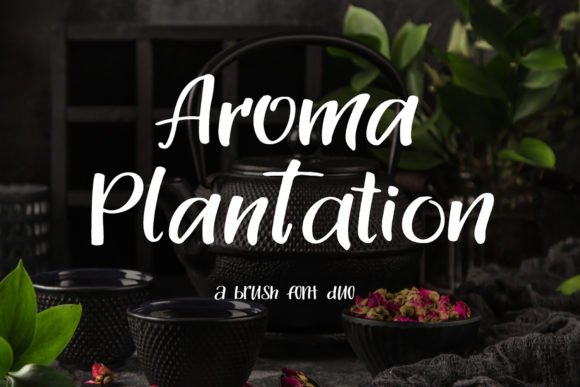
Unlock the Scent of Creativity with Aroma Plantation Duo Font
Have you ever found yourself lost in the world of typography, searching for the perfect font to evoke the warmth and charm of your favorite café? As a designer, you know that the right font can transport your audience to a different time and place, making their experience truly unforgettable. For me, it was a lazy Sunday morning, sipping coffee and browsing through a design blog, when I stumbled upon the Aroma Plantation Duo Font.
This stunning handlettering typeface is more than just a pretty face – it’s a powerful tool for creating beautiful, handmade typography that’s sure to capture the attention of your audience. With its clear style, good mood, and dramatic movement, Aroma Plantation Duo Font is perfect for designers looking to add a touch of elegance to their branding or web design projects.
Aroma Plantation Duo Font Key Features
- Size: Multi-language support with over 2000 glyphs, including Latin, Cyrillic, Greek, and Devanagari scripts
- Resolution: Optimized for high-resolution displays (Retina, 4K, etc.)
- Unique Characteristics: Elegant, modern design with a natural feel; perfect for branding, packaging, and editorial projects
- Font Styles: 2 font styles (Regular, Bold) with extensive language support
- Font Size Range: Suitable for body text, headlines, and titles; recommended font size range is 12-48 points
Aroma Plantation Duo Font Review
I’ve had the chance to work with the Aroma Plantation Duo Font, and I must say it’s a unique addition to any design project. ✨ One thing that stands out is its elegant and natural feel, reminiscent of hand-drawn illustrations. The font’s cursive lines and subtle imperfections give it a charming, organic vibe that’s perfect for branding or packaging.
Another advantage of the Aroma Plantation Duo Font is its versatility. ✨ It comes in two weights, making it suitable for both bold headings and delicate body text. Additionally, the font’s wide range of language support ensures it can be used across different cultural contexts.
- ⚠️ Limited font sizes: While the font looks great at larger sizes, it can become distorted when scaled down to very small sizes.
- ⚠️ Limited font combinations: The Aroma Plantation Duo Font is best used on its own, as pairing it with other fonts can create visual conflicts.
Overall, the Aroma Plantation Duo Font is a great choice for designers looking for a natural, elegant font. Its unique feel and versatility make it a valuable addition to any design project. However, its limitations should be carefully considered to ensure the best results.
Getting the Most Out of Aroma Plantation Duo Font
Use Aroma Plantation Duo Font to create a whimsical and elegant atmosphere in your designs.
Combine it with floral patterns and greenery to create a cohesive look.
Experiment with different font sizes and colors to add depth and visual interest.
Aroma Plantation Duo Font is perfect for:
Floral-themed branding and packaging
Botanical-inspired art and illustrations
Alternatives to Aroma Plantation Duo Font
Pacifico is a beautiful script font that exudes a sense of relaxation and calmness. It’s perfect for use in beach-themed designs, travel brochures, and other projects that require a laid-back vibe. Compared to Aroma Plantation Duo Font, Pacifico has a more casual and approachable feel, making it ideal for outdoor and recreational brands.
Carolyna Pro is a elegant script font that adds a touch of sophistication and glamour to any design. It’s ideal for use in high-end fashion brands, luxury jewelry, and other projects that require a sense of luxury and refinement. Compared to Aroma Plantation Duo Font, Carolyna Pro has a more refined and polished look, making it suitable for high-end fashion and luxury brands.